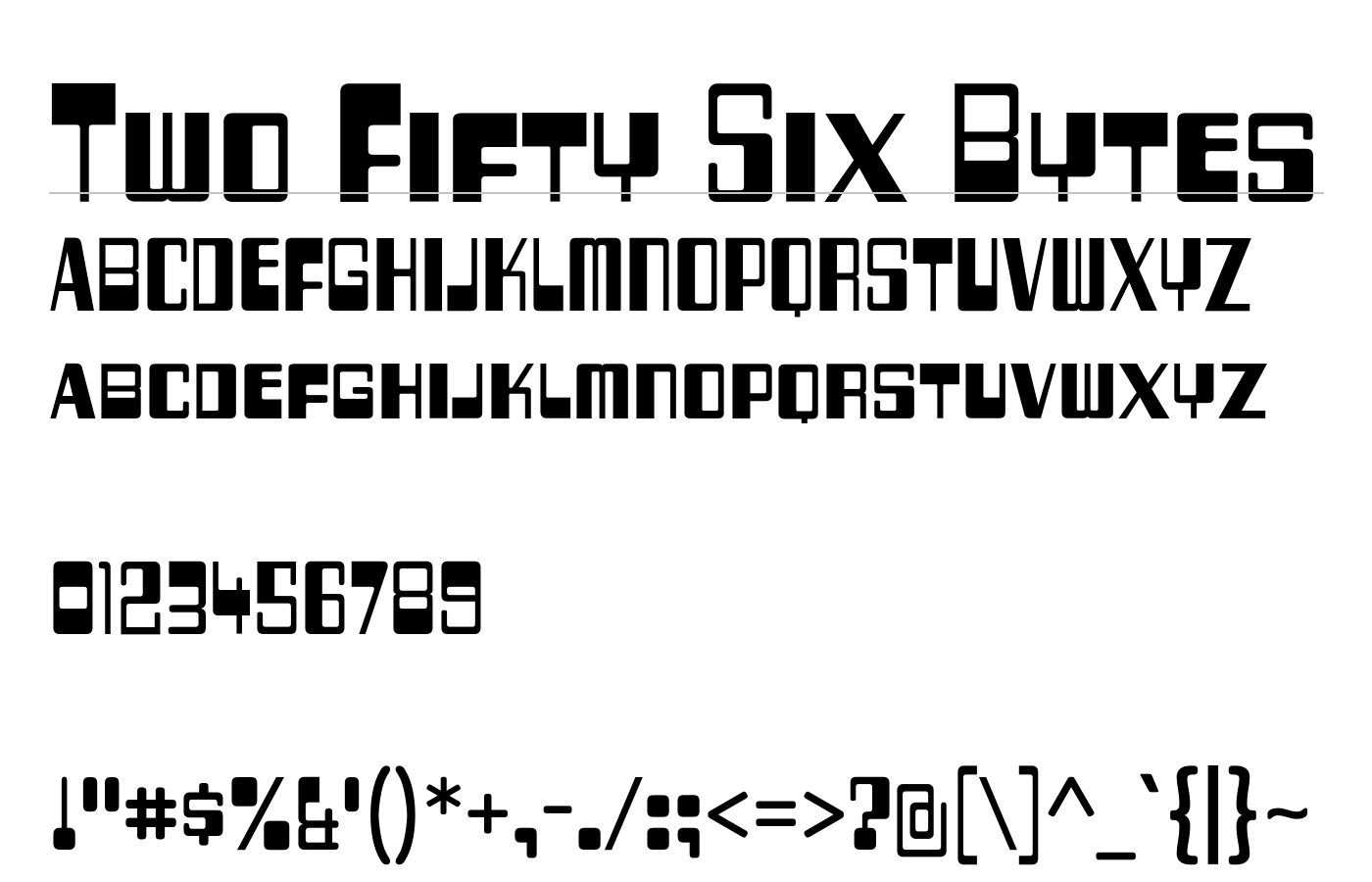
256 Bytes Font is a bold, condensed sans serif with a unique digital and futuristic vibe. Its blocky, squared shapes combined with narrow proportions make it perfect for tech-inspired designs, headlines, and logos looking for a modern, edgy feel. This font’s strong geometric style ensures high impact and readability in projects related to technology, gaming, or modern branding.
256 Bytes Font
About 256 Bytes Font
| Font family | 256 Bytes Font |
| Designer | Ray Larabie |